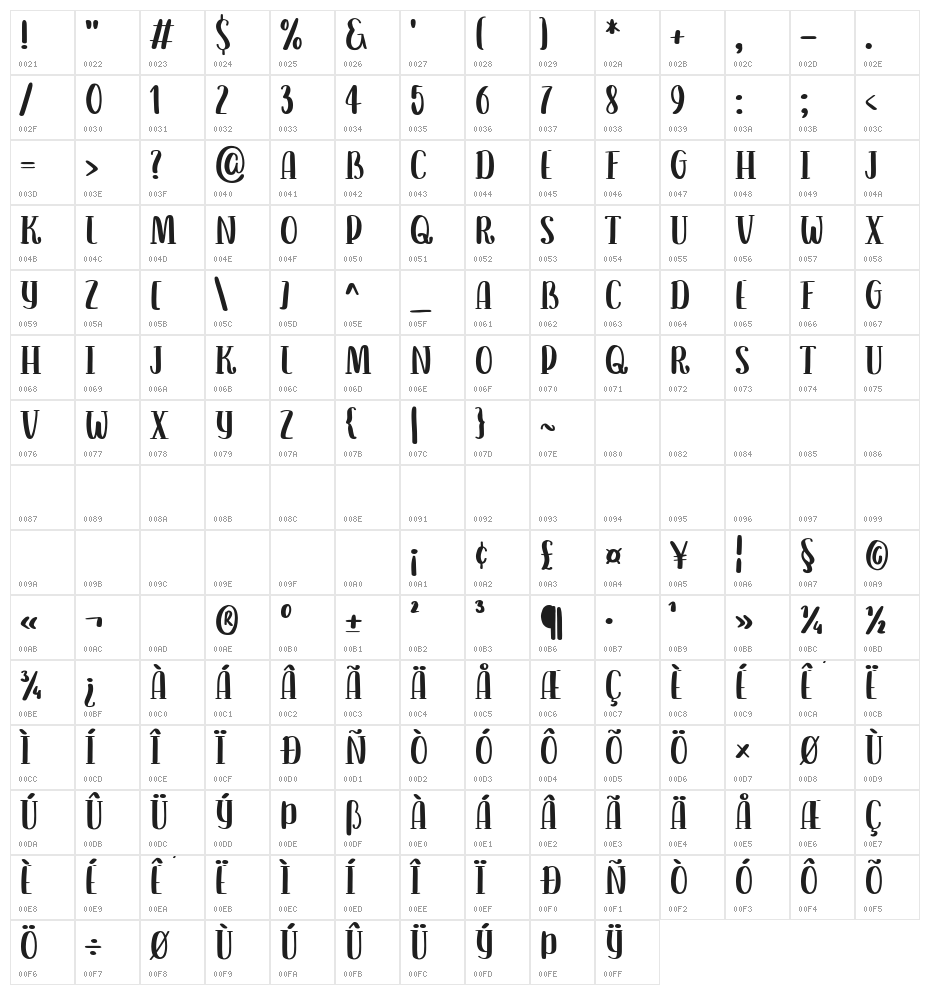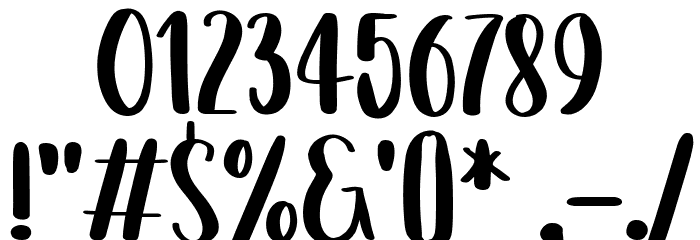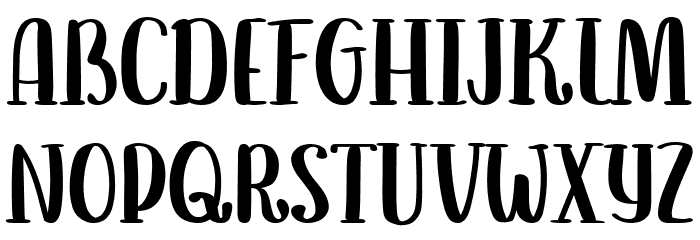
LuckyCider Font
LuckyCider Description
This font features a playful and bold script style with a hand-drawn appearance. The characters are slightly condensed with a whimsical flair, evident in the curved strokes and unique letterforms. The uppercase and lowercase letters maintain a consistent flow, creating a cohesive look. The numbers and special characters complement the alphabet with similar stylistic elements, making it versatile for various design needs. The font's overall aesthetic is lively and engaging, perfect for projects that require a touch of personality and creativity.
| Proposed Projects | Ideal for branding, packaging, invitations, posters, and social media graphics. |